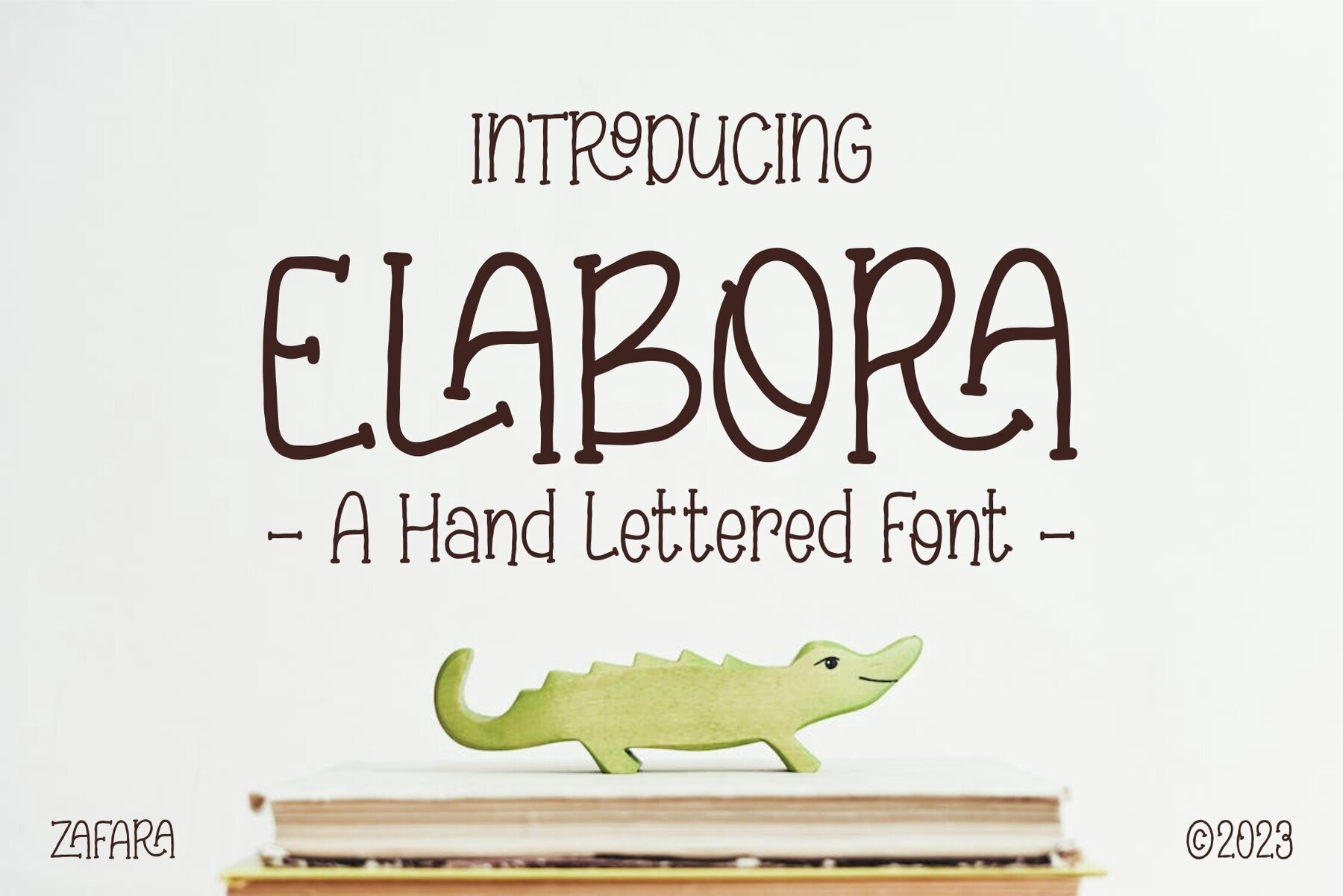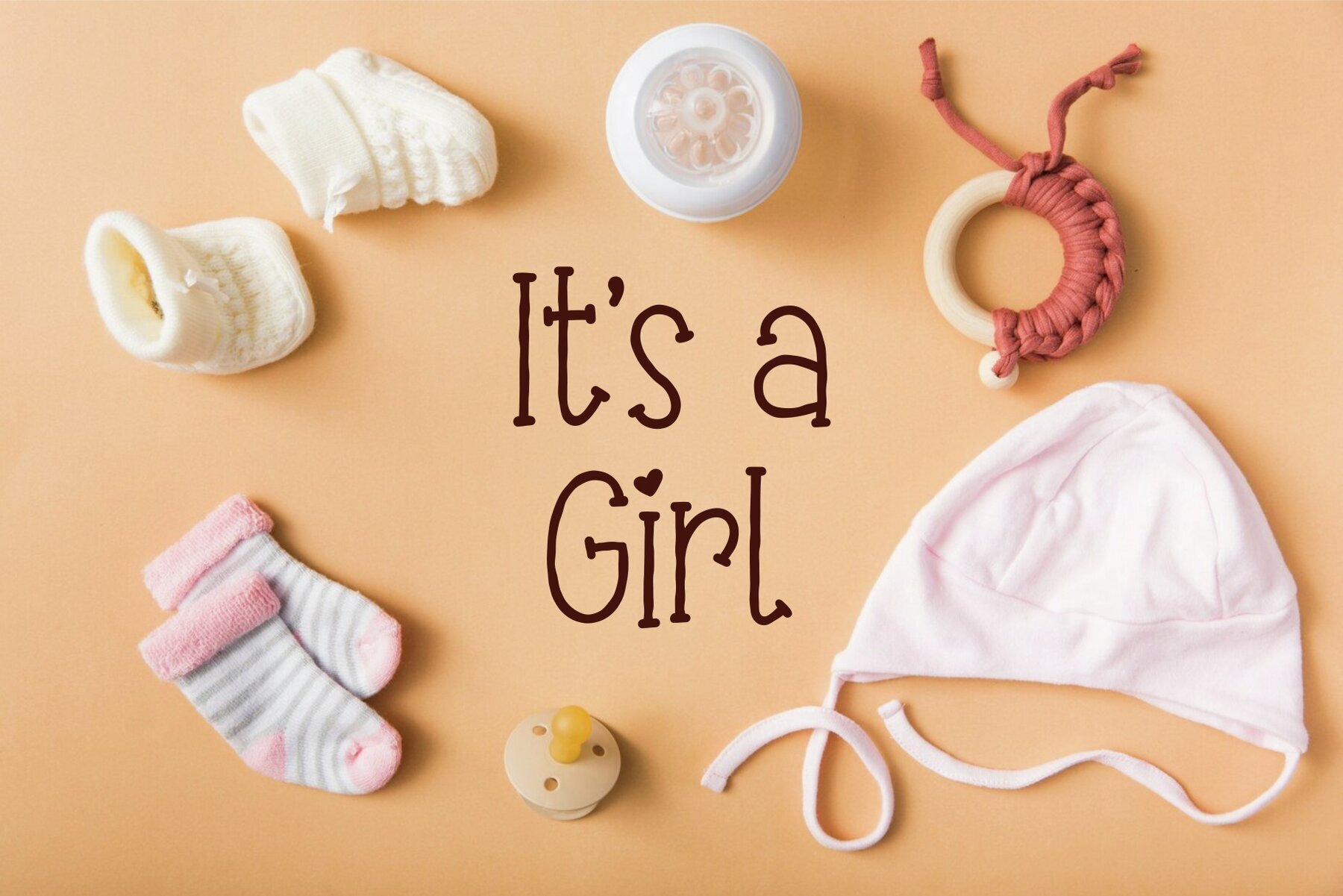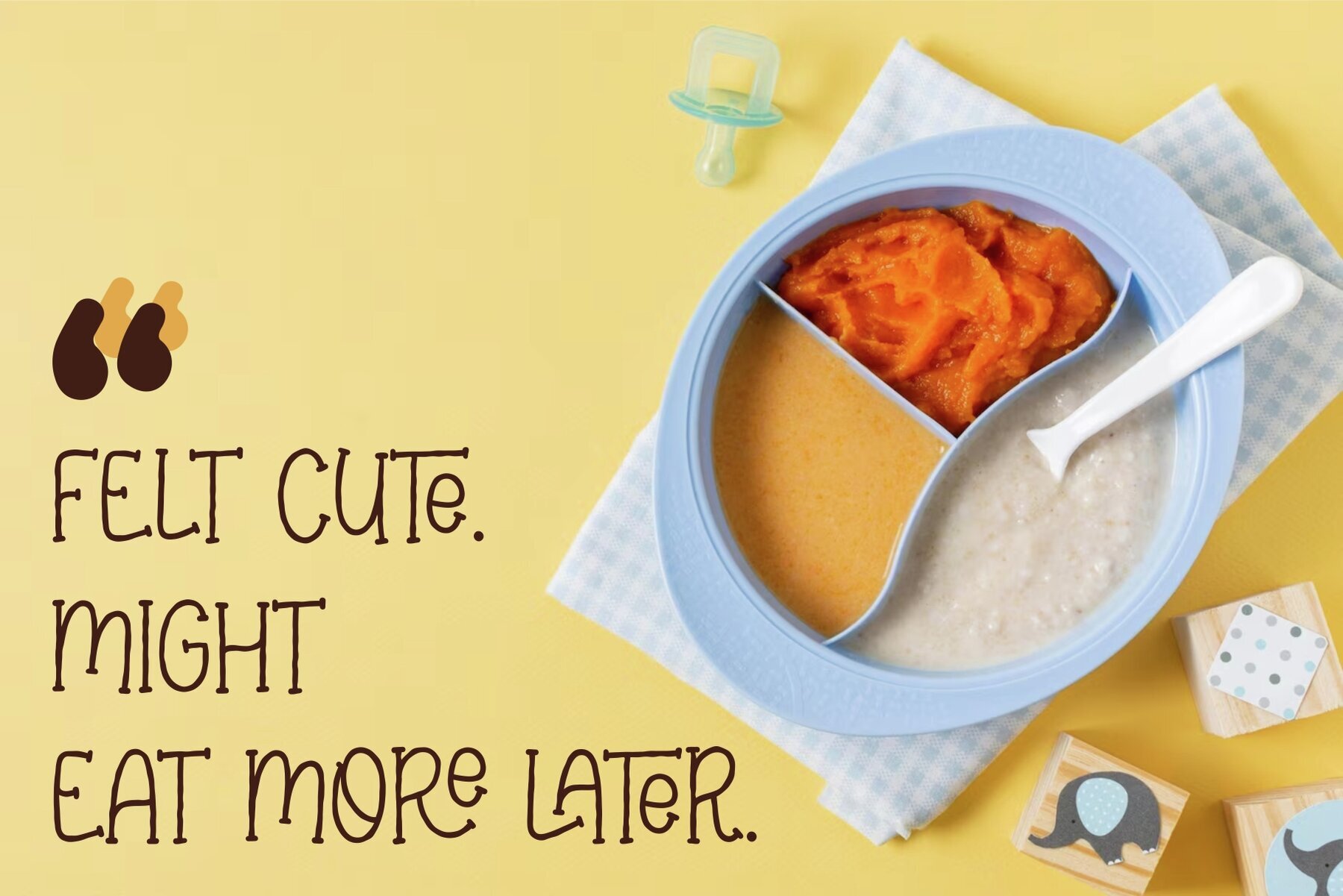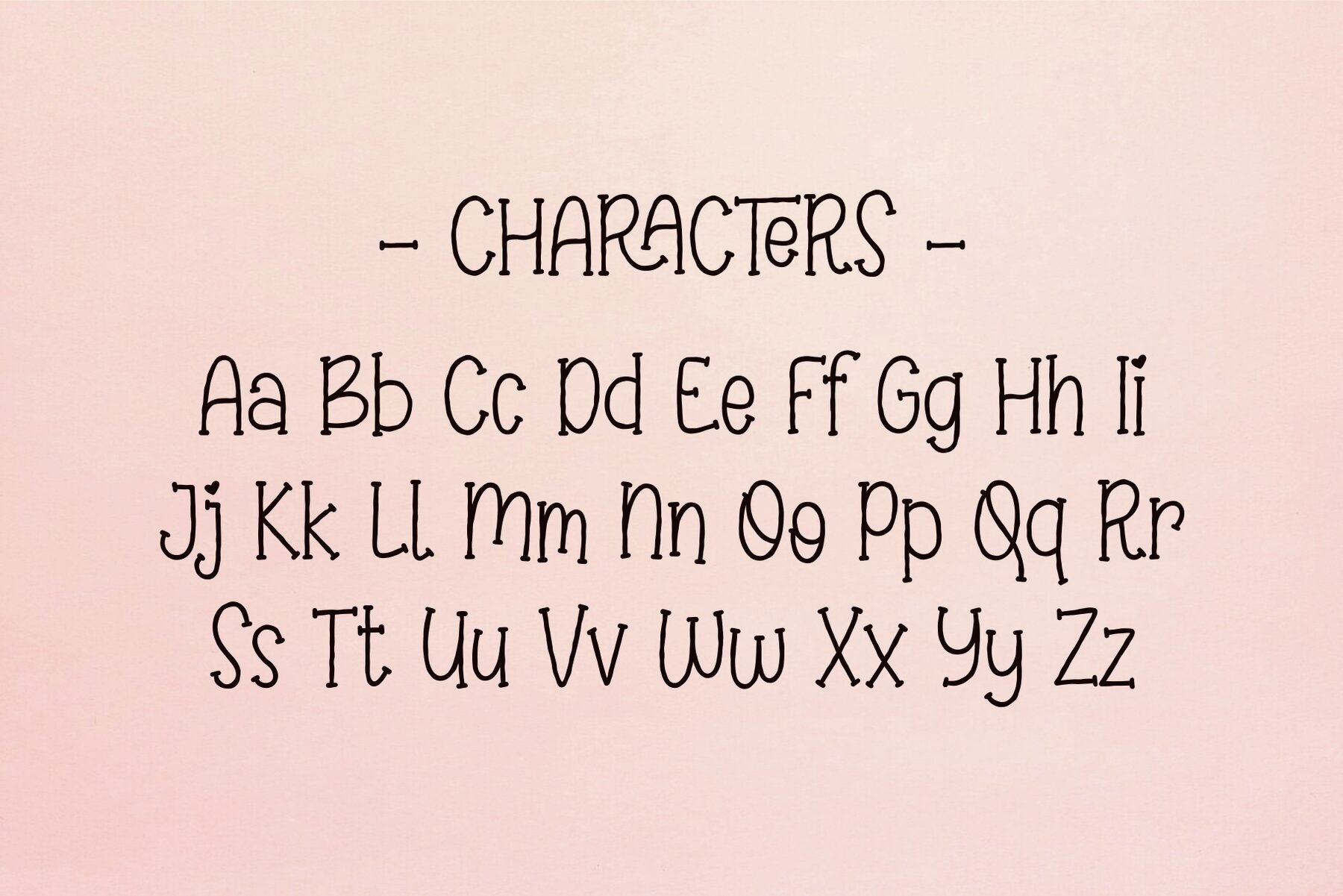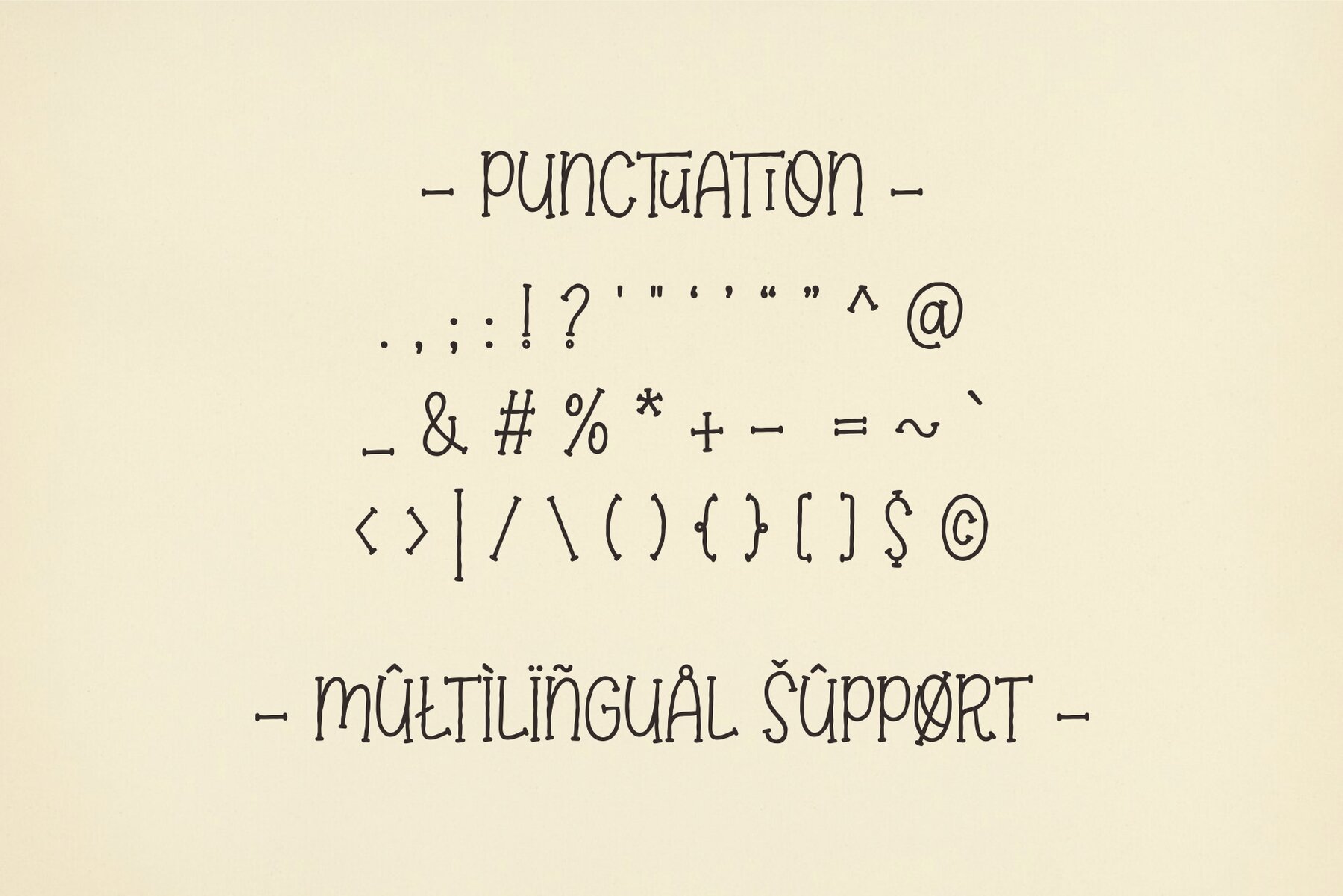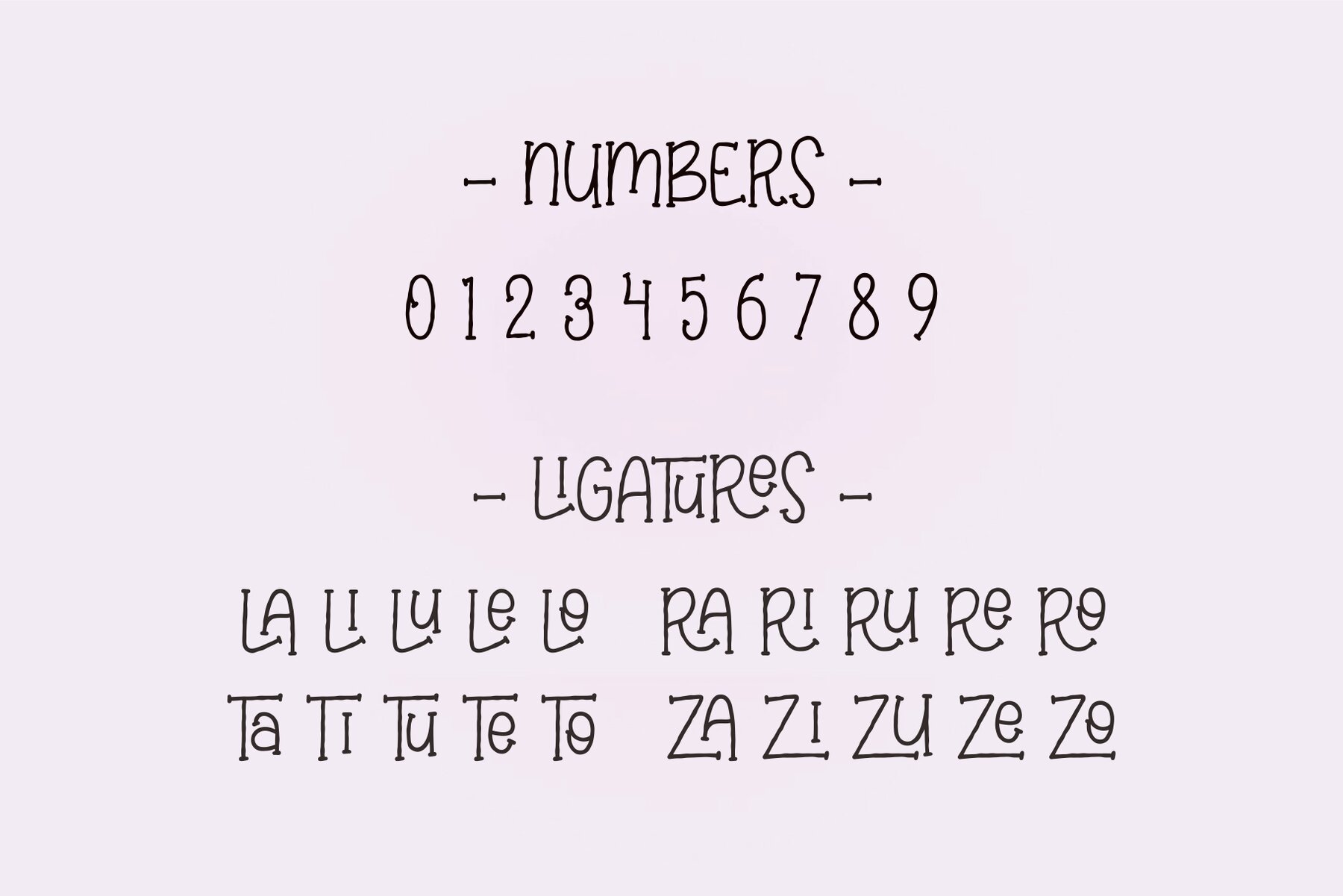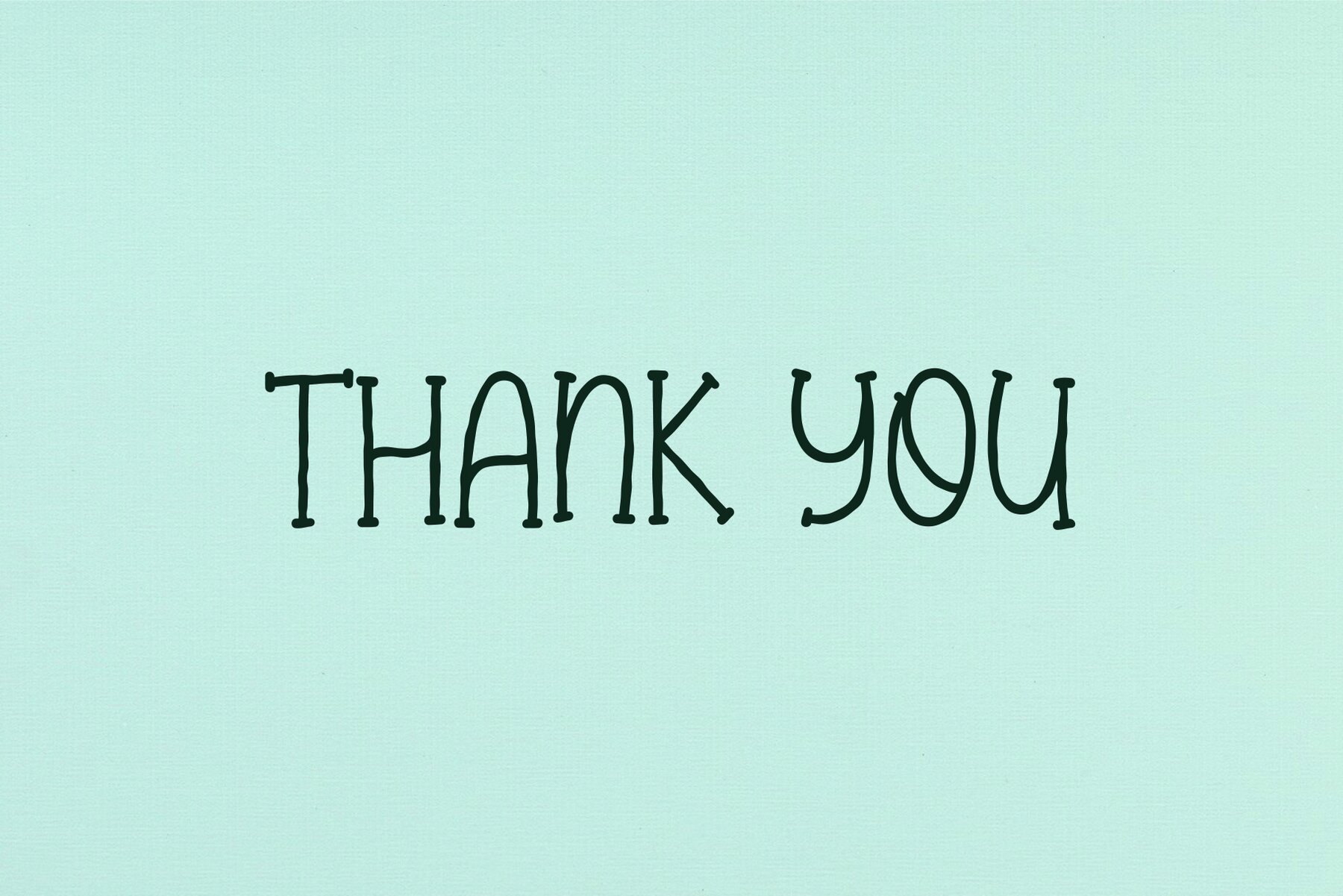
Elabora Font
Elabora Regular
The Elabora font, crafted by Zafara Studios, draws inspiration from the textured strokes of chalk. This gives it a unique, rough appearance suitable for a range of applications, from playful and informal to serious and academic. Ideal for classroom materials, children's books, invitations, web designs, and product packaging, Elabora offers flexibility for various design needs.Elabora: Chalk-Inspired Typeface with Versatile Appeal